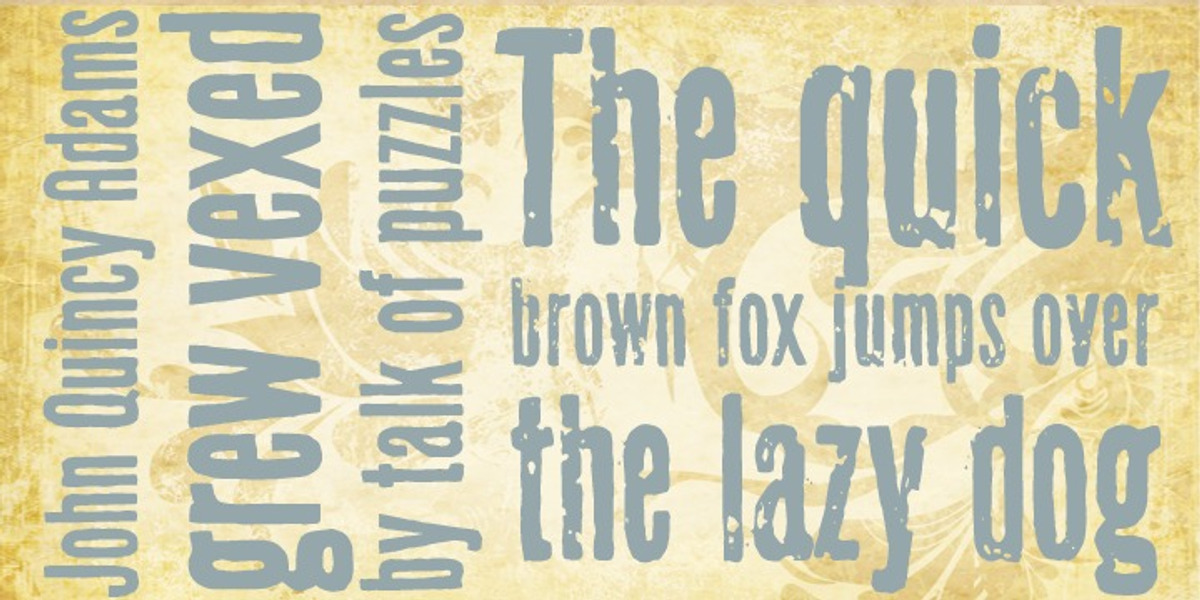
Crush
Crush Smooth and Rough are a pair of grunge-style fonts designed for strong visual impact. They feature tight letter spacing and a large x-height, ensuring legibility even at small sizes. This makes them suitable for headlines, branding, and other display uses where a bold and textured aesthetic is desired.